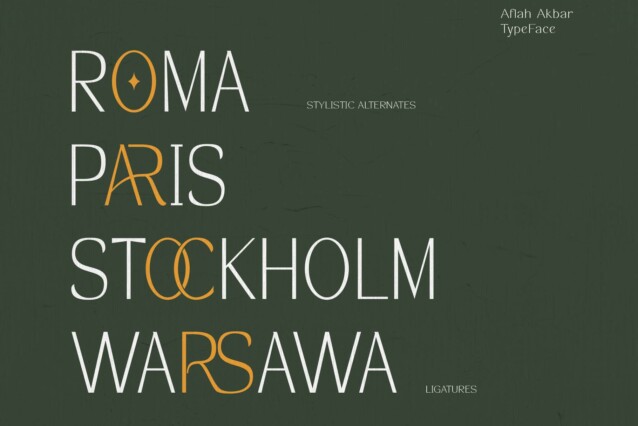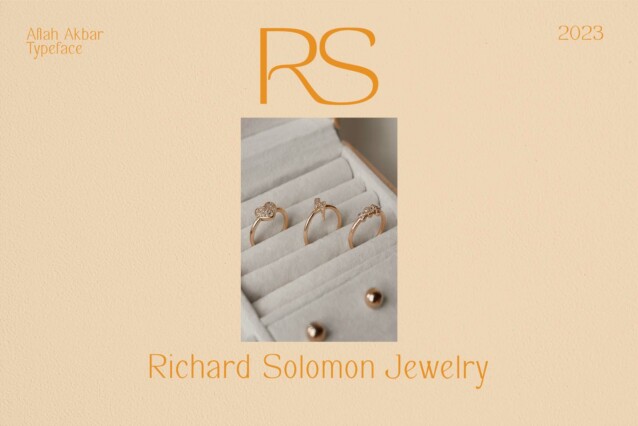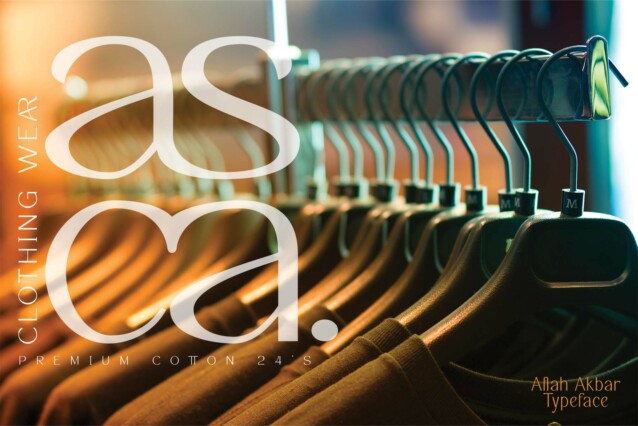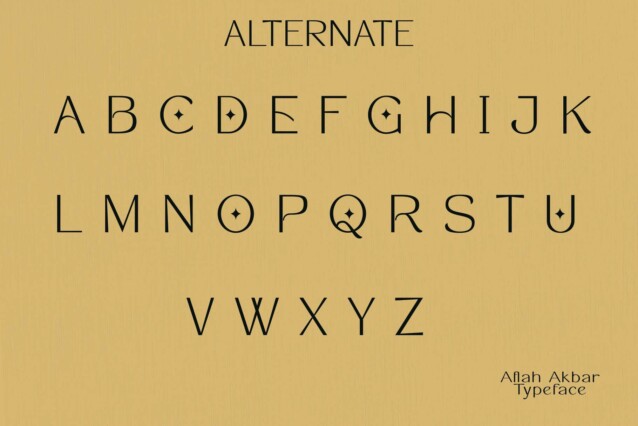
Aflah Akbar Typeface
Aflah Akbar Typeface is an Elegant sans serif typeface, this font has several unique and elegant ligature characters, very suitable for those of you who have projects that need an elegant Sans serif font, Make sure this is one of the fonts you have on your device .